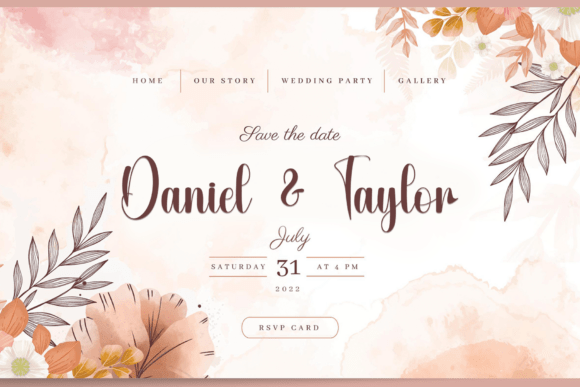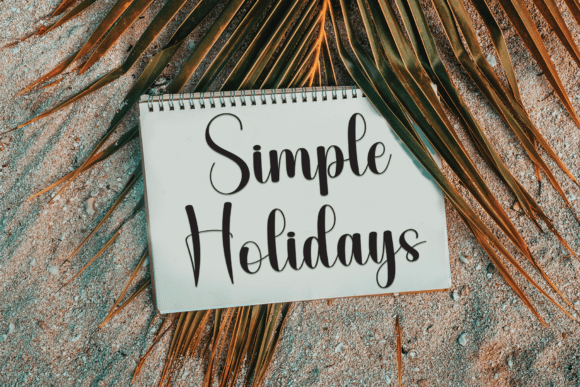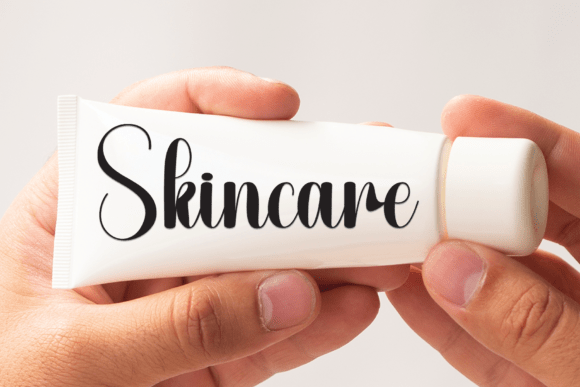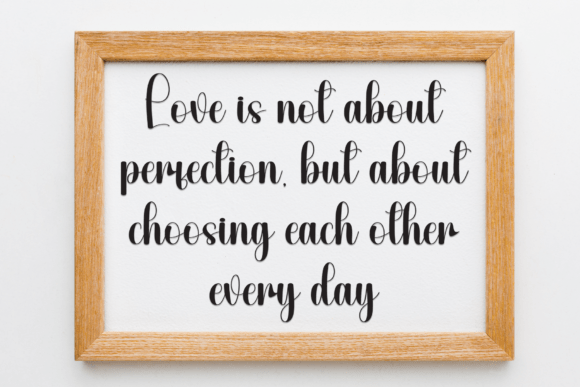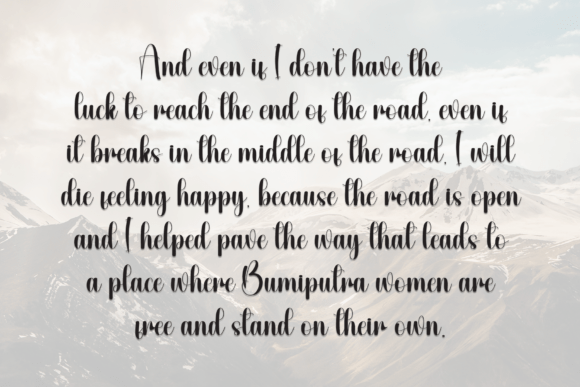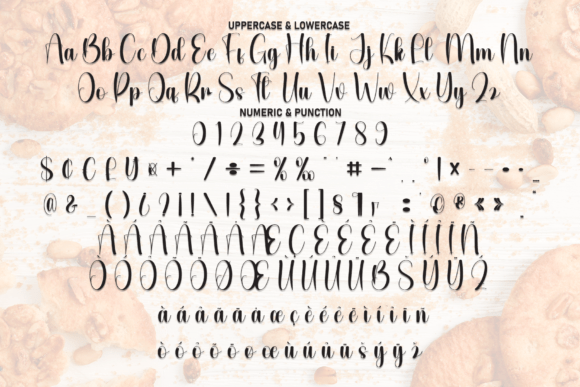
Biscuits Font: A Charming Handwritten Display Font for Creative Projects
Are you looking for a font that can add a touch of sweetness and whimsy to your creative projects? Look no further than the Biscuits Font, a charming and personable handwritten display font that’s perfect for crafting lovable wedding invitations, heartwarming cards, and more. In this article, we’ll introduce you to the Biscuits Font and explore its features, uses, and benefits for designers and crafters.
What is Biscuits Font?
Biscuits Font is a handwritten display font that’s designed to deliver a splash of sweetness with every stroke. This playful and endearing font is perfect for adding a touch of whimsy to your creative projects, making them stand out from the crowd. With its charming and personable style, Biscuits Font is ideal for crafting lovable wedding invitations, heartwarming cards, and other creative projects that require a touch of sweetness.
Features of Biscuits Font
Biscuits Font comes with a range of features that make it perfect for creative projects. Some of its key features include:
- Handwritten style: Biscuits Font is a handwritten display font that’s designed to look like it was written with love and care.
- Playful and endearing: This font is perfect for adding a touch of whimsy and playfulness to your creative projects.
- Charming and personable: Biscuits Font has a charming and personable style that’s perfect for crafting lovable wedding invitations and heartwarming cards.
- Versatile: This font is perfect for a range of creative projects, from wedding invitations and cards to posters and social media graphics.
Uses of Biscuits Font
Biscuits Font is perfect for a range of creative projects, including:
- Wedding invitations: Add a touch of sweetness and whimsy to your wedding invitations with Biscuits Font.
- Cards: Create heartwarming cards for special occasions, such as birthdays, anniversaries, and holidays.
- Posters: Use Biscuits Font to create eye-catching posters for events, promotions, and more.
- Social media graphics: Add a touch of whimsy to your social media graphics with Biscuits Font.
Benefits of Biscuits Font for Designers and Crafters
Biscuits Font offers a range of benefits for designers and crafters, including:
- Customization: With Biscuits Font, you can customize your text to fit your brand’s style and personality.
- Time-saving: This font saves you time and effort, allowing you to focus on other aspects of your creative project.
- Professional results: Biscuits Font helps you achieve professional results, even if you’re not a professional designer.
In conclusion, Biscuits Font is a charming and personable handwritten display font that’s perfect for adding a touch of sweetness and whimsy to your creative projects. With its playful and endearing style, this font is ideal for crafting lovable wedding invitations, heartwarming cards, and other creative projects that require a touch of sweetness. Whether you’re a designer or crafter, Biscuits Font is a great choice for your next project.